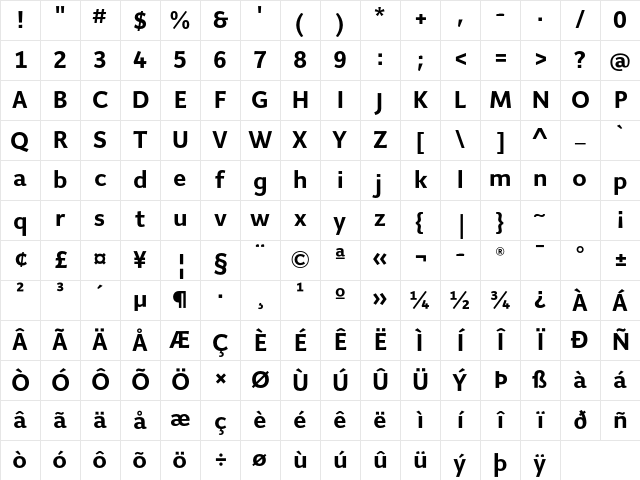
Giacomo LT Bold
Designer: James Montalbano
Complete Giacomo LT Bold glyph index. Displaying only characters natively supported by Giacomo LT Bold font.
Design Context for Giacomo LT
Giacomo LT is a composed and adaptable typeface that performs quietly and consistently across a wide range of design contexts. Its bold stroke weight gives it real presence on the page.